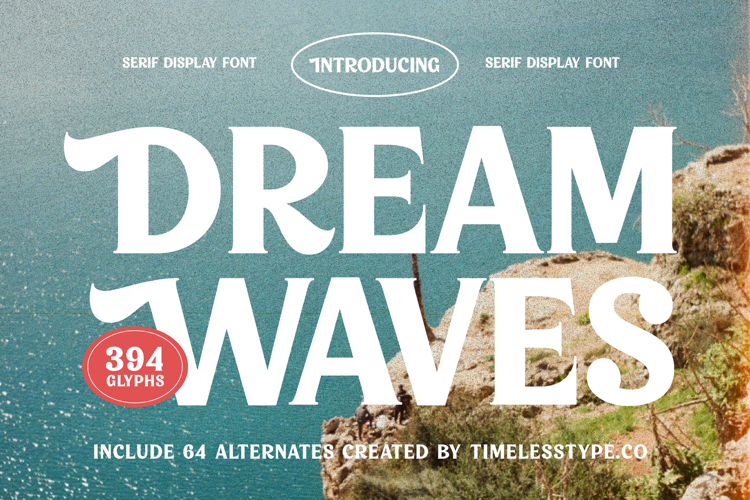
Dream Waves - Serif Display Font
Unleash unforgettable visual presence with the captivating curves of Dream Waves - Serif Display Font. This striking display serif commands attention, blending substantial weight with an elegant, almost fluid structure. Characterized by its high-contrast thick-and-thin strokes and beautifully sculpted serifs, this typeface evokes a nostalgic, 1970s-inspired aesthetic while remaining distinctly contemporary. It is the perfect foundational element for projects demanding immediate visual impact and premium quality.
Elevate your design customization through the expansive feature set built into Dream Waves - Serif Display Font. Boasting 394 total glyphs, including 64 unique alternates, swashes, and ligatures, this typeface provides unparalleled flexibility for creative titling. These stylistic variations allow designers to tailor the look from refined elegance to playful boldness, ensuring every headline and logo lockup is truly unique and compelling.
Connect with audiences across any border thanks to its robust linguistic capability. With its extensive multilingual support, Dream Waves - Serif Display Font adapts seamlessly across global markets, making it incredibly versatile for international projects. This comprehensive language coverage guarantees that your brand message maintains its stylistic integrity and polished appeal, no matter the locale or character set required.
Define your market segment instantly by utilizing this font’s inherent premium feel. Dream Waves - Serif Display Font is perfect for luxury branding, high-end product packaging, sophisticated fashion campaigns, and impactful magazine editorial layouts. Its unmistakable presence ensures instant recognition, making it the definitive choice for designers seeking to inject a touch of bold sophistication and modern vintage charm into their most important work.